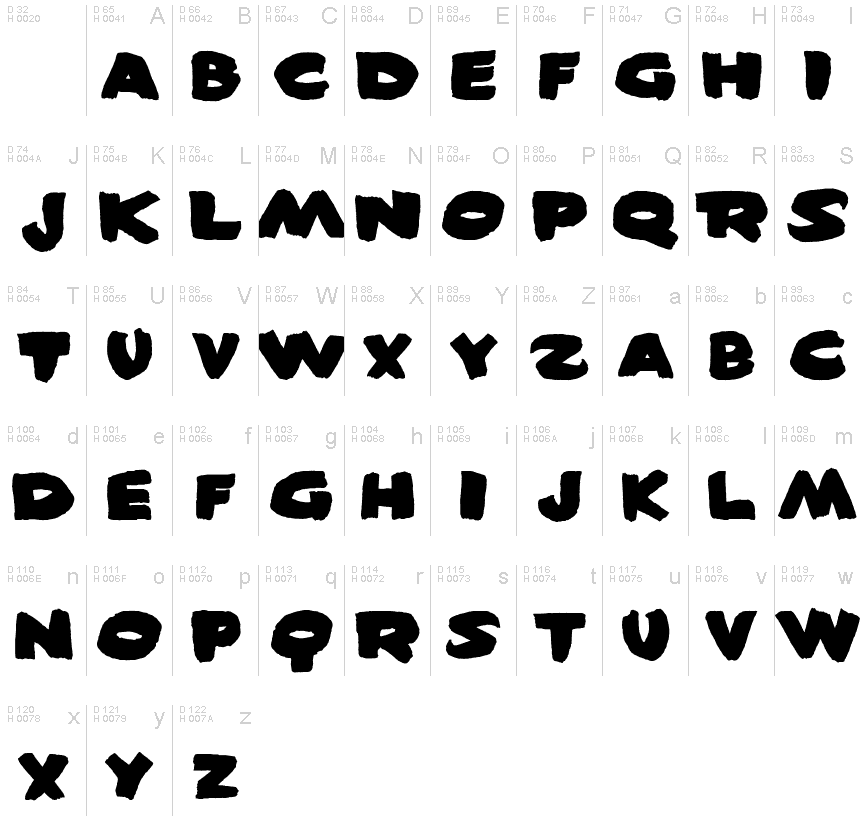
Sin City
Sin City, designed by Jens R. Ziehn, is a font that captures attention with its brush style and extra-bold weight. The expanded width of each character exudes confidence and presence, making it a standout choice for impactful messaging. With its handcrafted aesthetic, Sin City brings an authentic touch to design projects needing a bold statement with a personal feel.
The vigorous strokes and slight irregularities reflect the dynamism of urban street art, infusing designs with energy and raw elegance. This font's versatility makes it ideal for everything from branding to advertising, editorial design to digital media that requires a font with character and strength.
Sin City's robust appearance is not just visually striking but also highly functional due to its clear readability even at larger sizes. Its assertive style is perfect for headlines, posters, apparel design, or any creative endeavor that demands a font with both personality and visual impact.
The vigorous strokes and slight irregularities reflect the dynamism of urban street art, infusing designs with energy and raw elegance. This font's versatility makes it ideal for everything from branding to advertising, editorial design to digital media that requires a font with character and strength.
Sin City's robust appearance is not just visually striking but also highly functional due to its clear readability even at larger sizes. Its assertive style is perfect for headlines, posters, apparel design, or any creative endeavor that demands a font with both personality and visual impact.